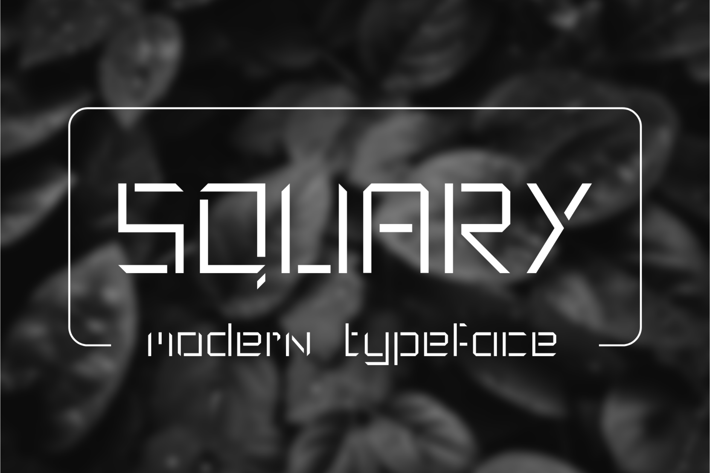
Squary - Modern Typeface
Squary - beautifully crafted modern typeface with 4 styles (Light, Regular, Medium, Bold) for your awesome projects.
- Consistency